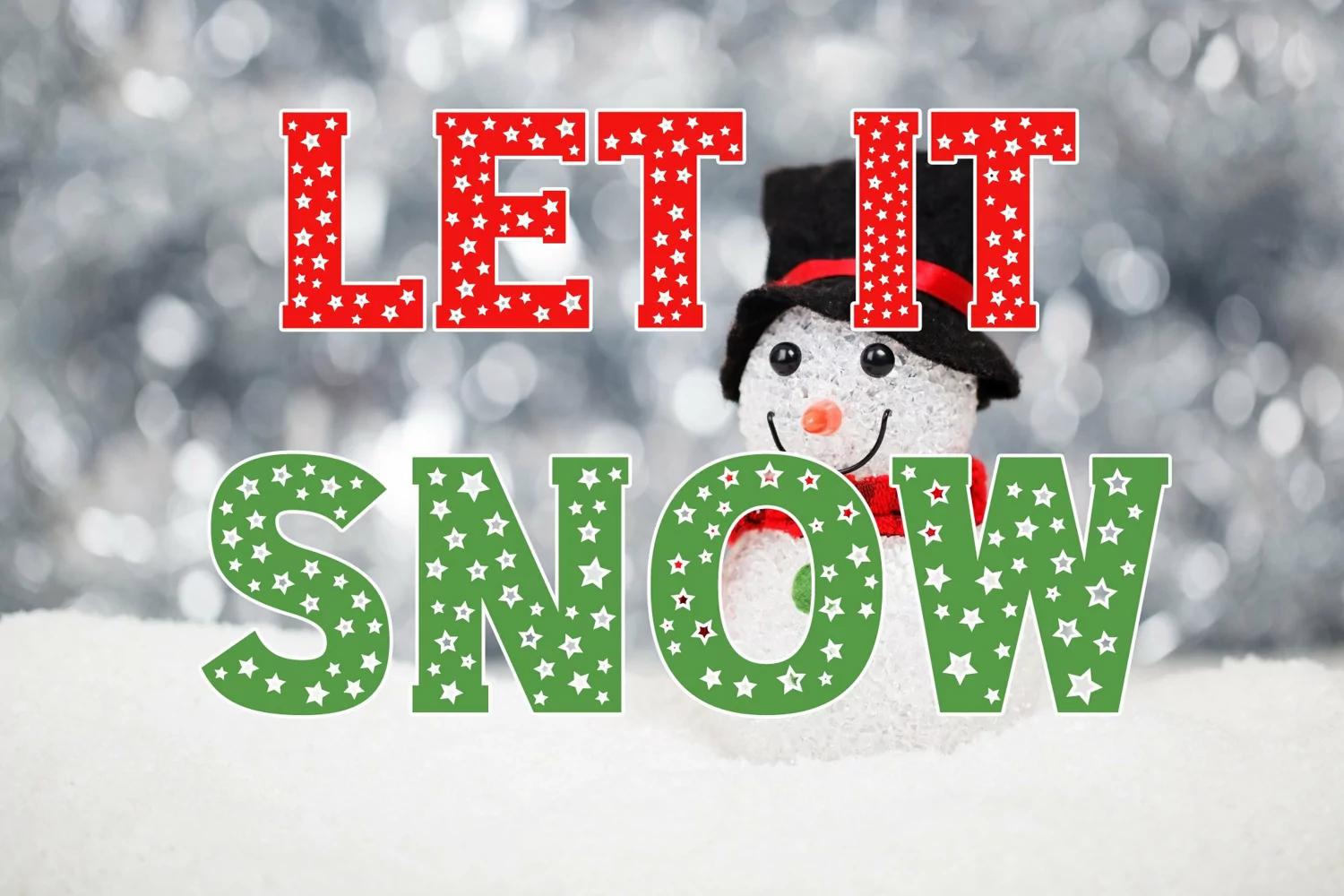
Christmas Font with star pattern.
Christmas Stars is a bold and festive display font, featuring star ornaments.
Great for Christmas cards, posters, logos, packaging, invitations, websites, T-Shirts and more.